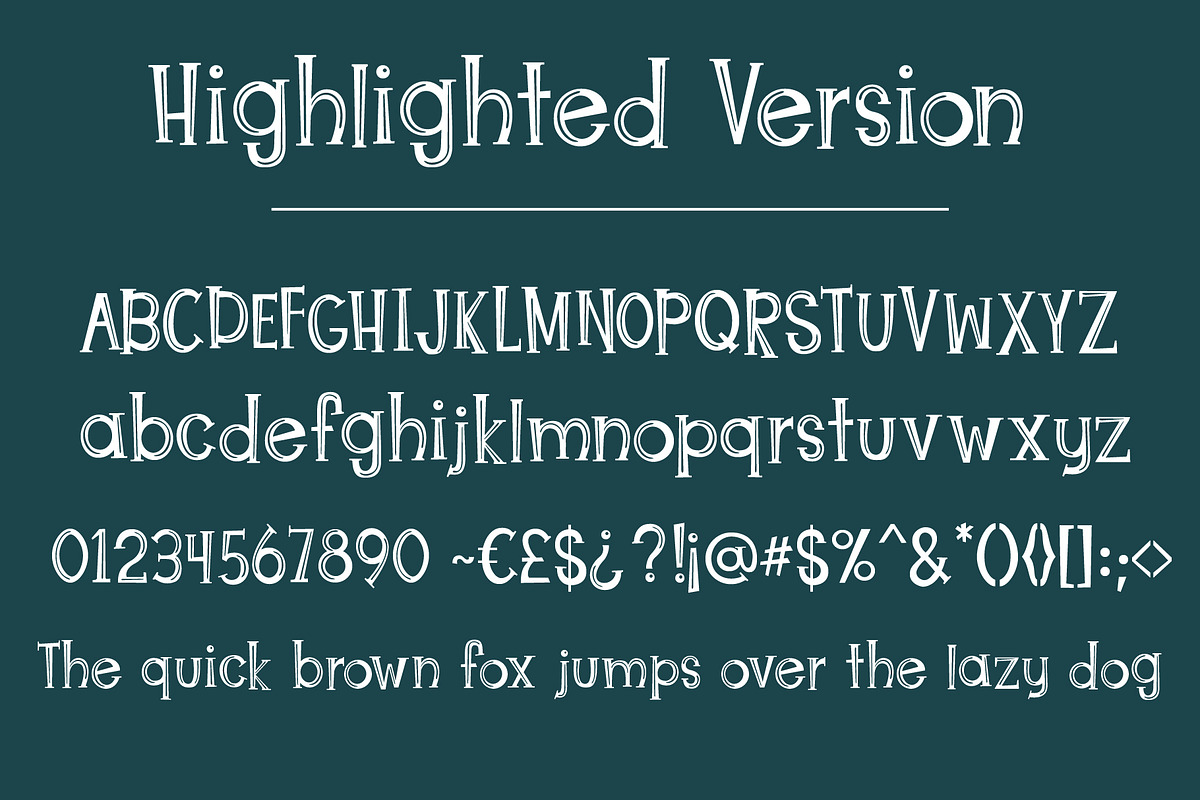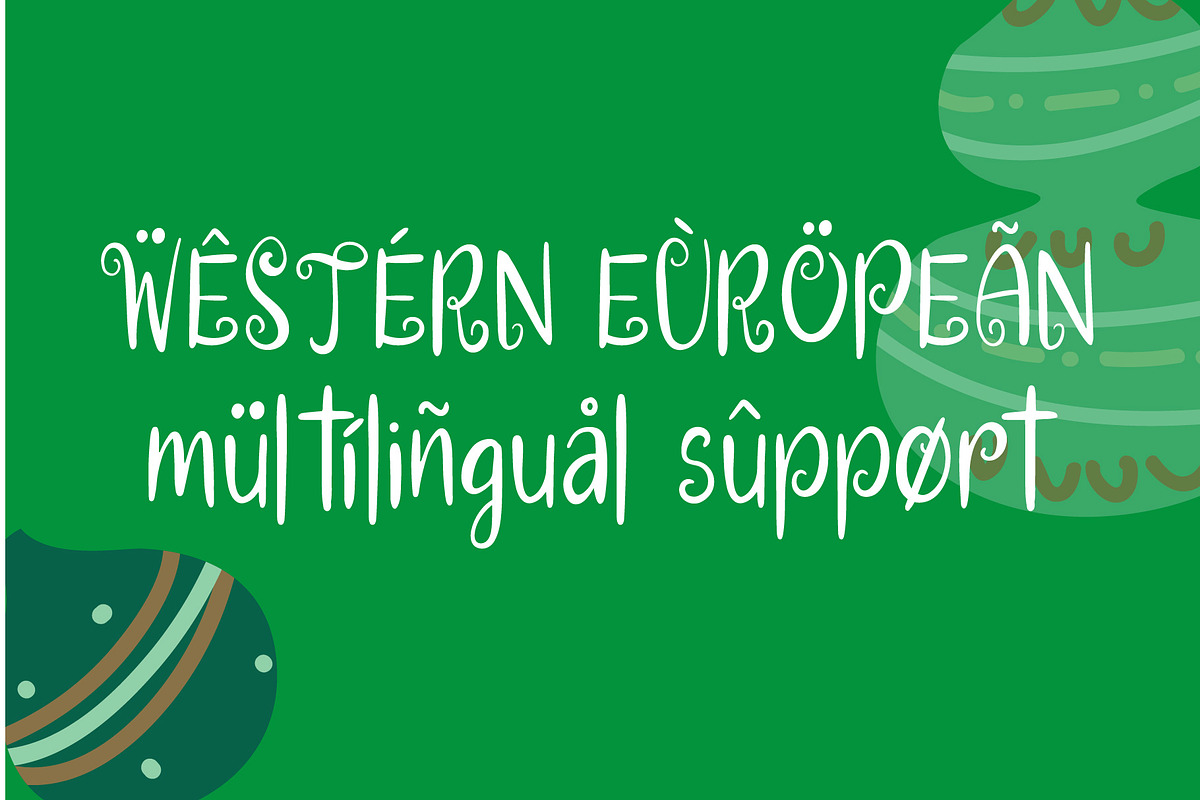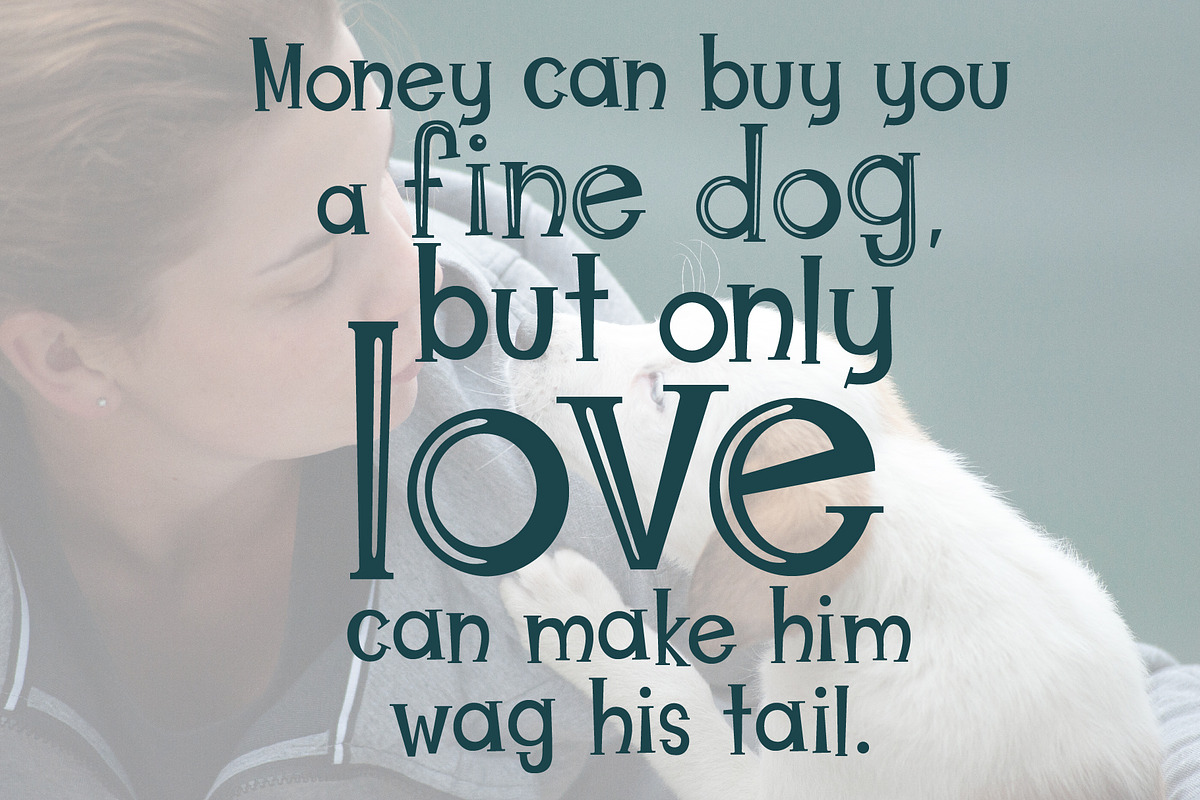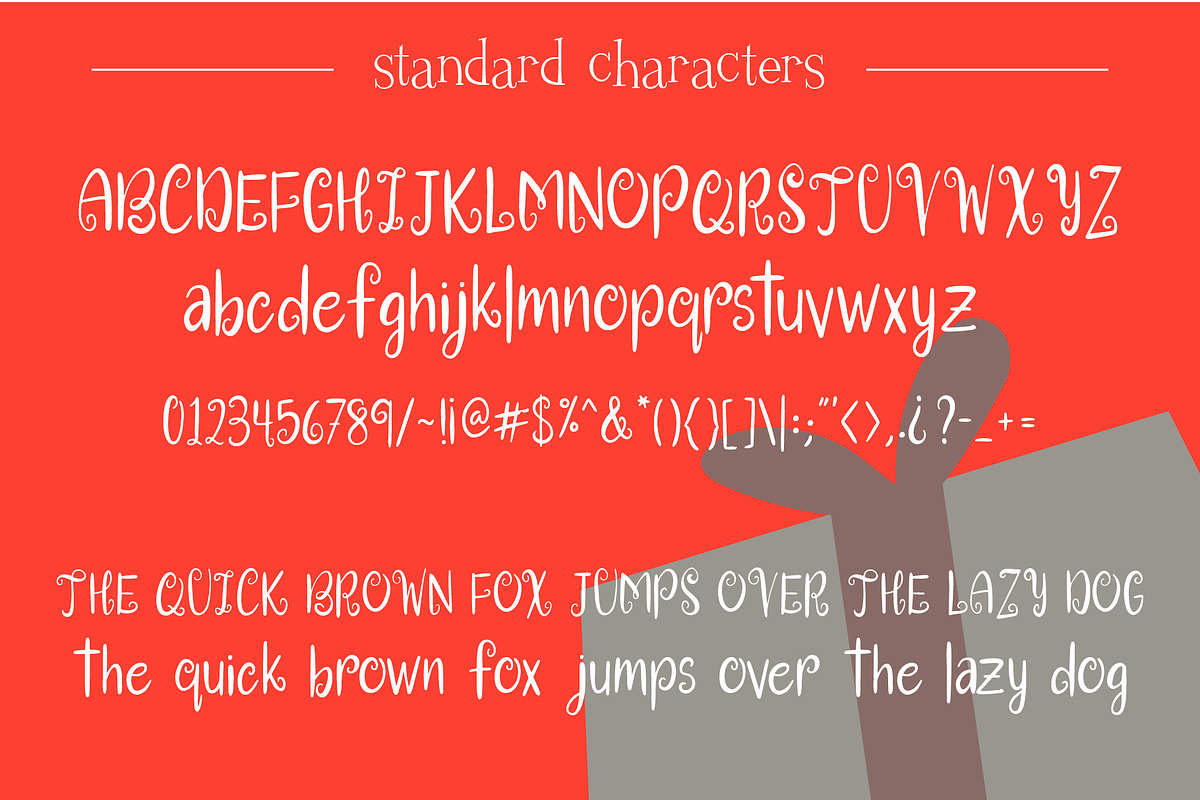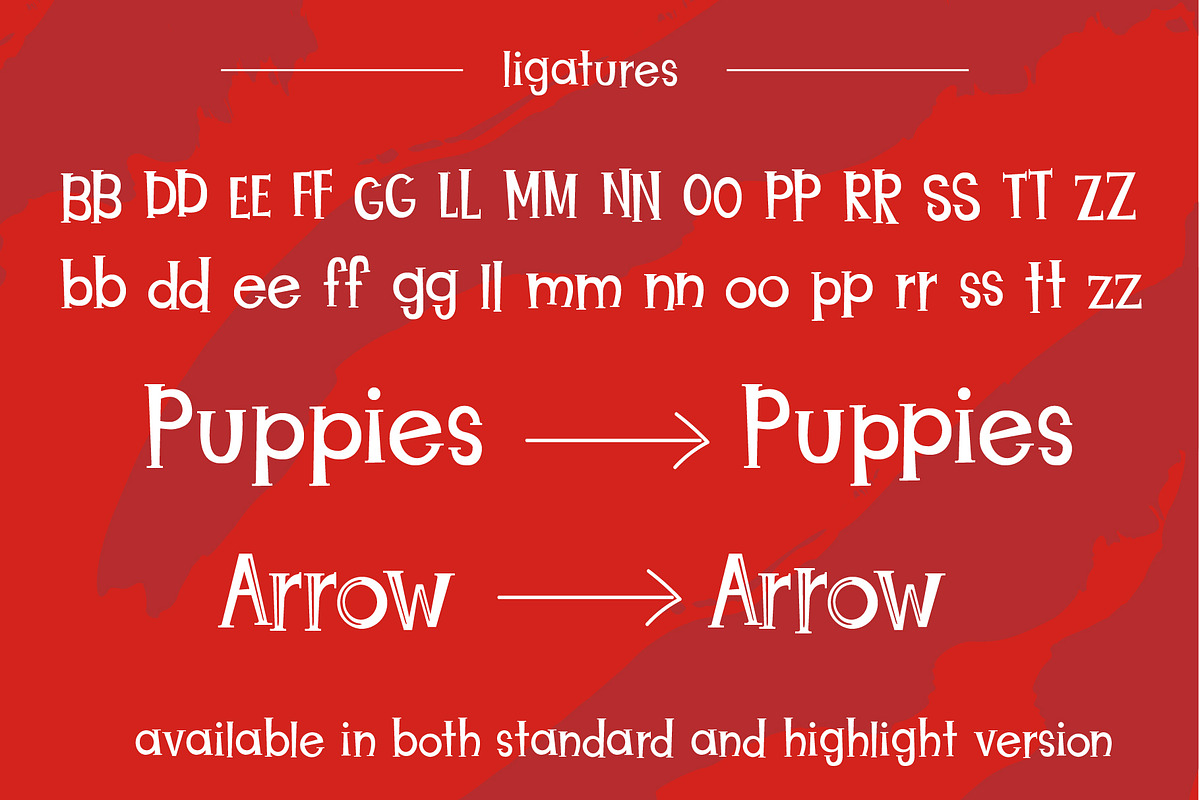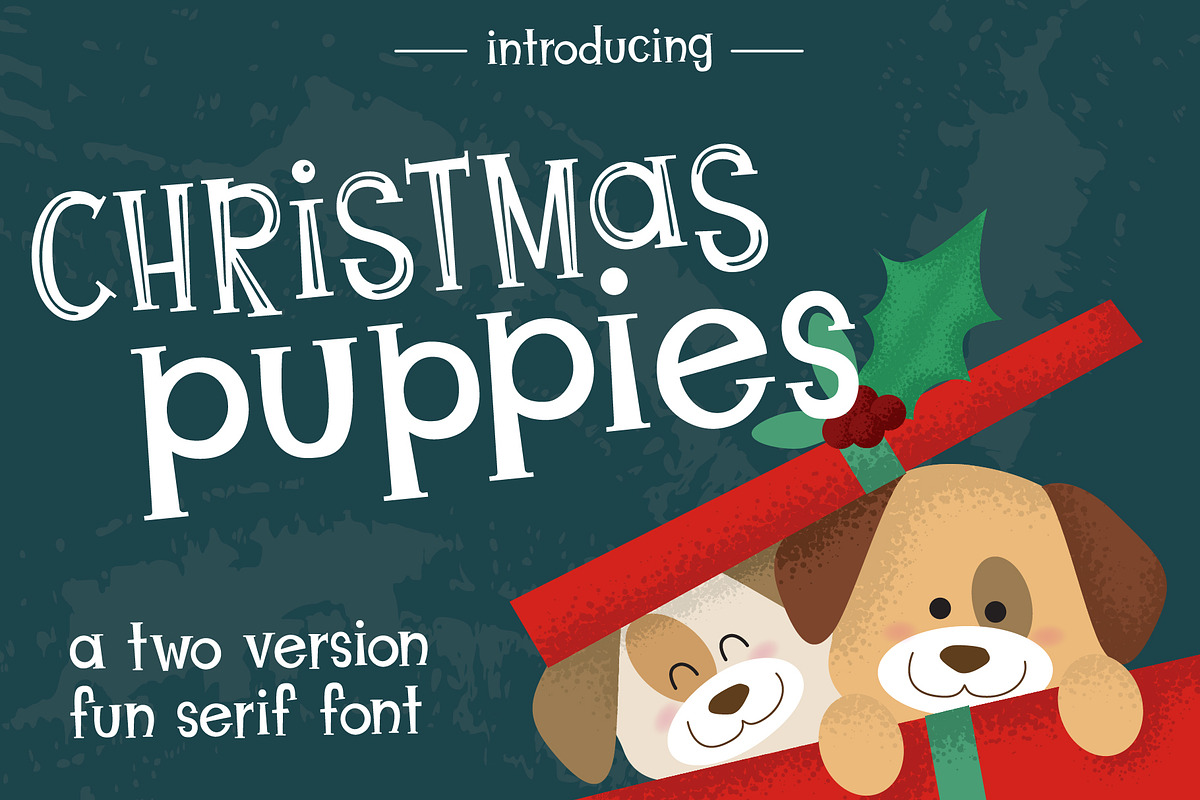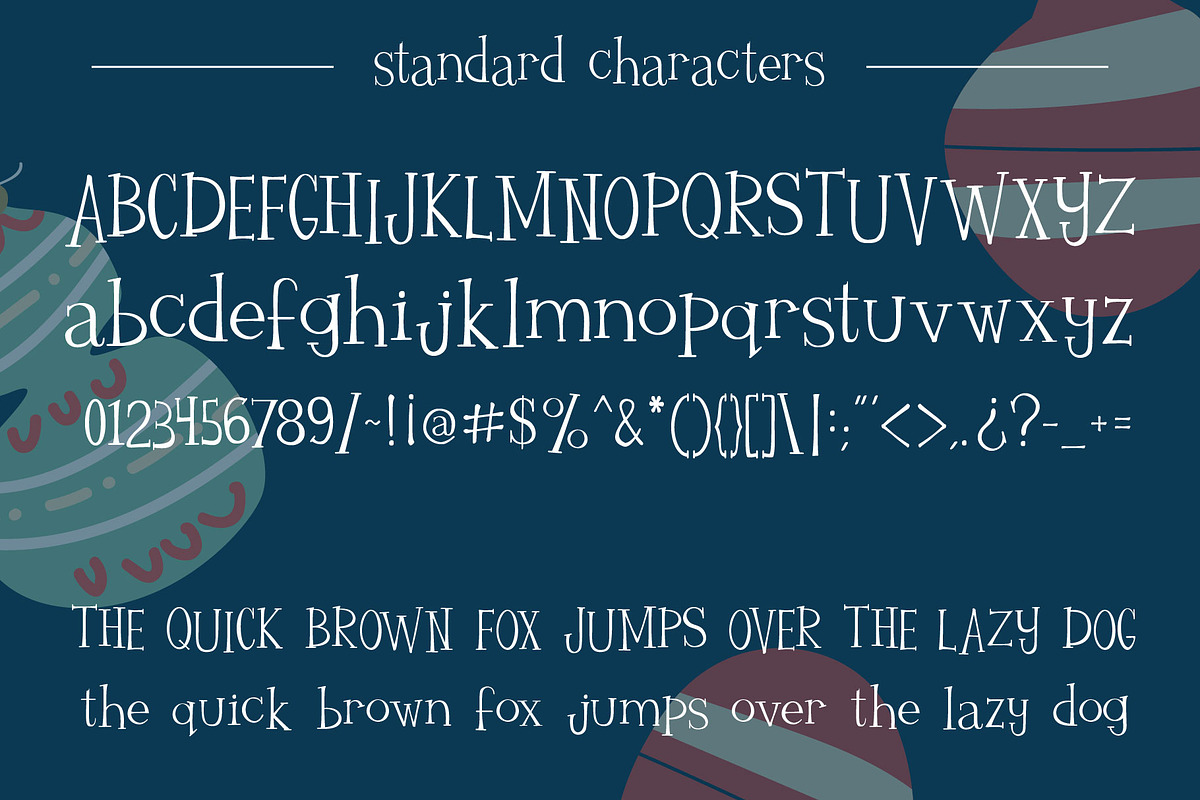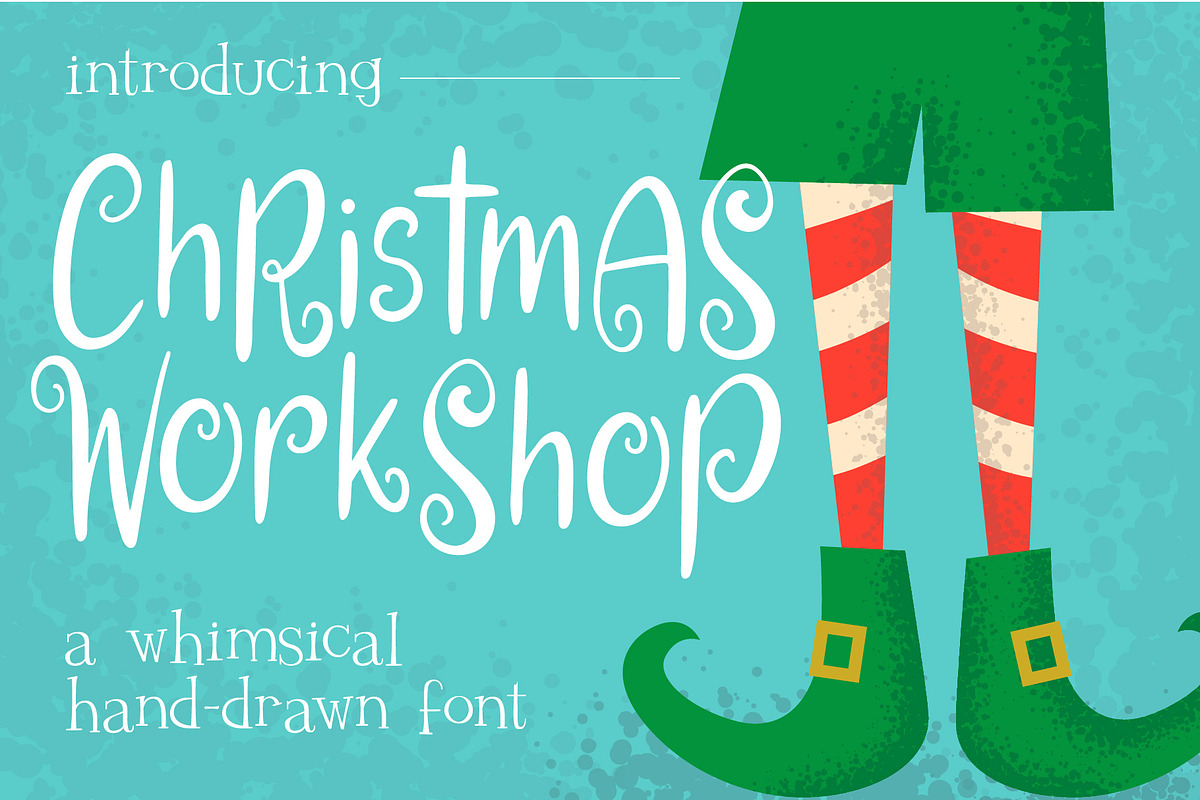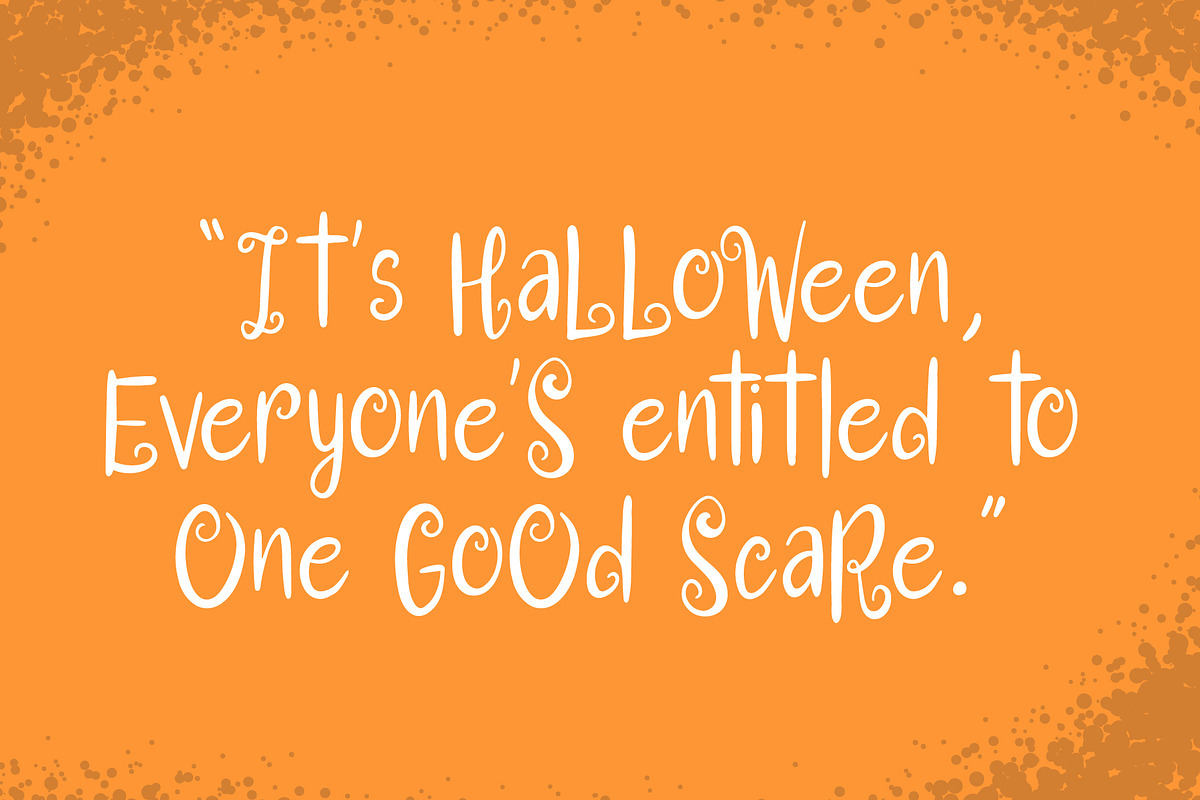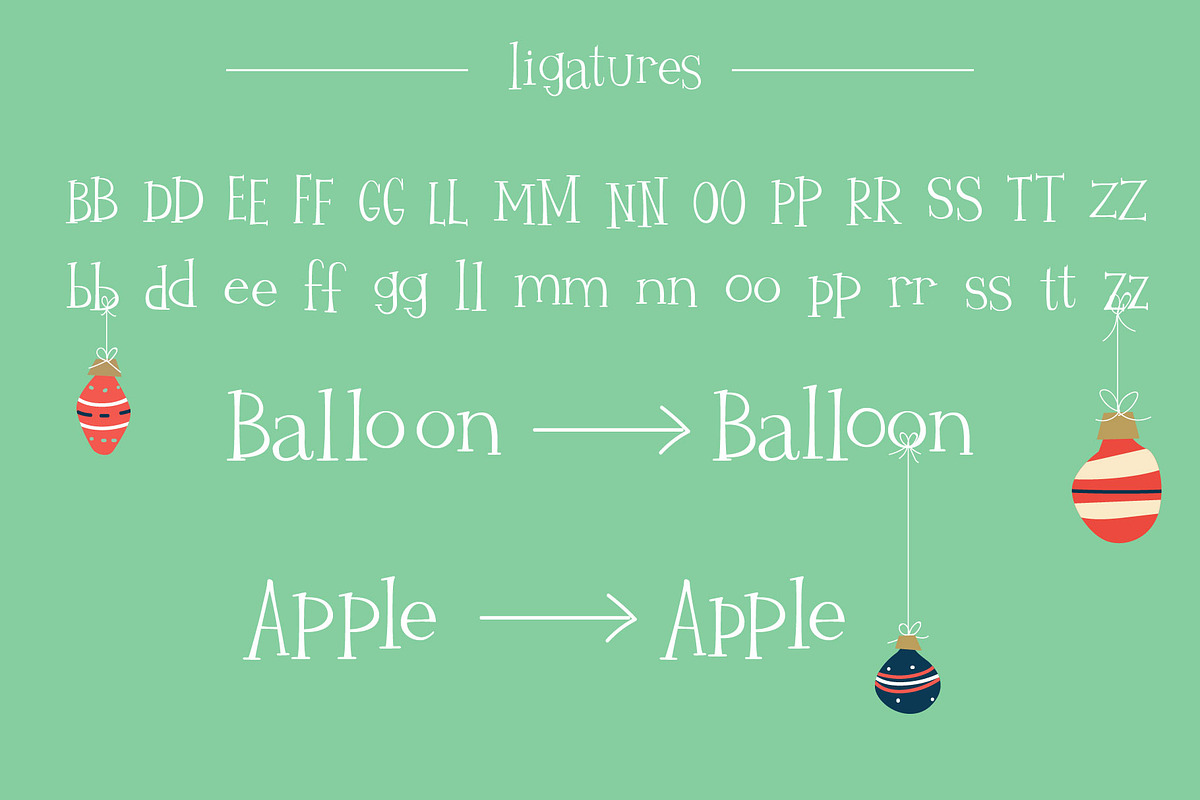
Christmas Themed Mini Font Bundle
Individual Fonts are:
Christmas Workshop https://creativemarket.com/TuNeuwin/2865715-Christmas-Workshop-Font
Rudolph's Holiday Party https://creativemarket.com/TuNeuwin/2832533-Rudolphs-Holiday-Party
Christmas Puppies https://creativemarket.com/TuNeuwin/3075966-Christmas-Puppies-Font-Pair